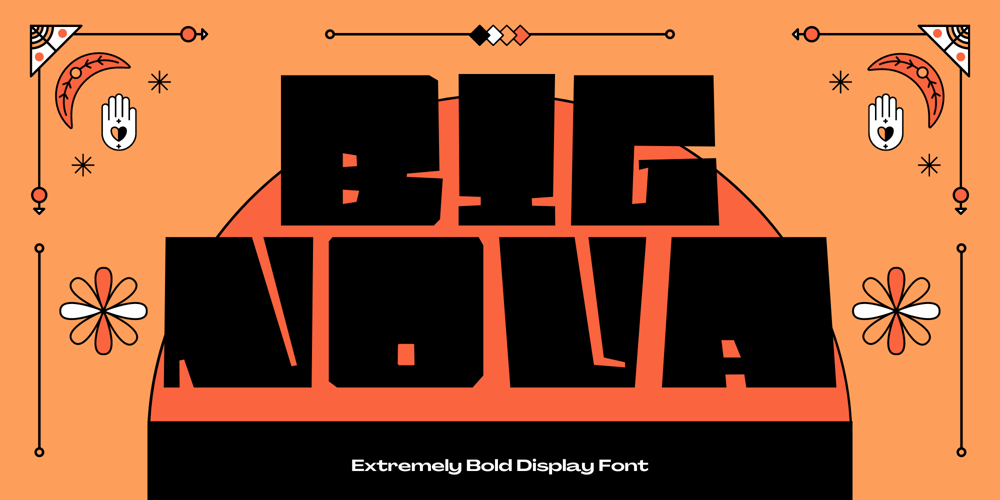
Big Nova
Big Nova font
Big Nova Font Family was designed by Hermansyah and published by Get Studio. Big Nova contains 1 styles and family package options. Big Nova is a daring and eccentric display font that challenges traditional design principles. Its bold, larger-than-life letterforms boast an unconventional style, featuring block shapes that evoke a retro and cosmic feel making it perfect for attention-grabbing headlines, posters, and innovative branding, setting a tone that is both striking and refreshingly unconventional.